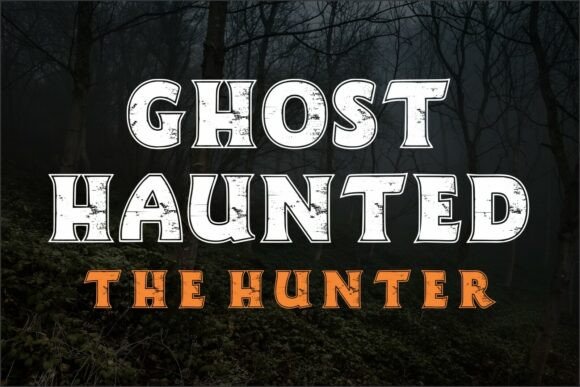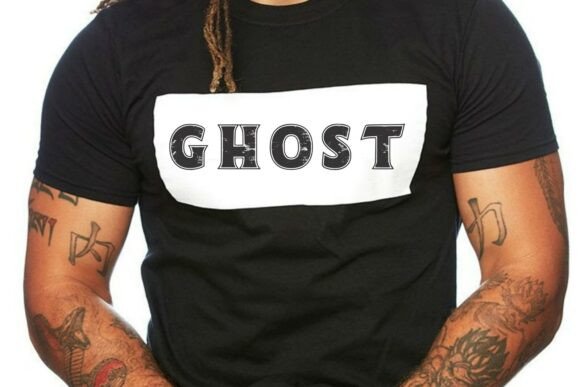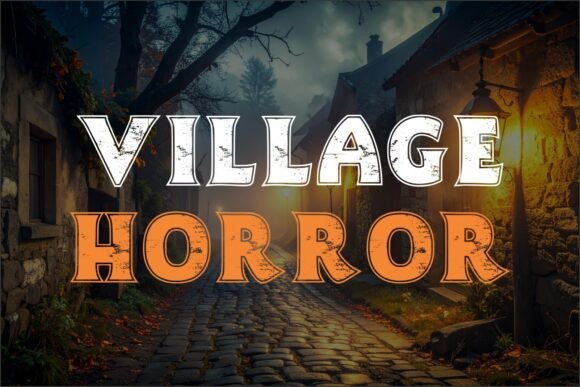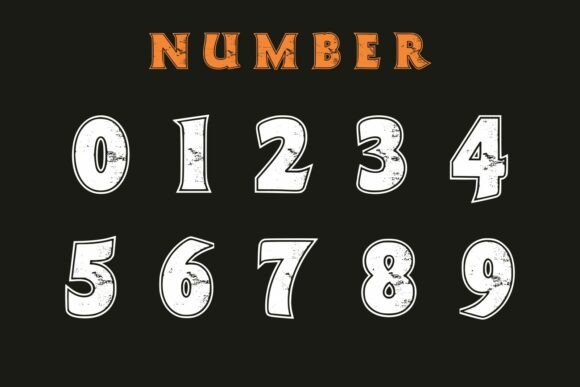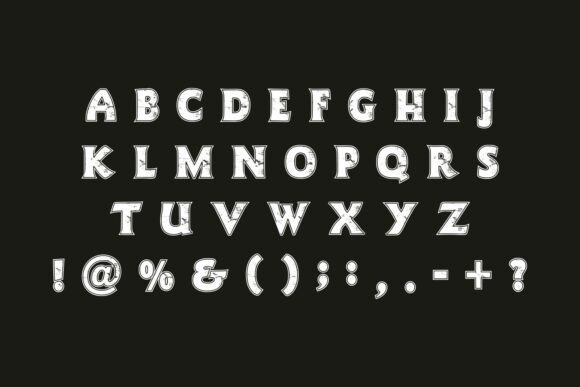
Introduction to Horror Killer Font Font
Fonts play a crucial role in design, and the Horror Killer Font font is a typeface that brings both character and versatility to any project. Whether you’re working on a branding project, a website, or a print design, the Horror Killer Font font offers a unique style that can elevate your work.
Horror Killer is a bold display typeface blending classic slab-serif structure with distressed, grunge-style textures.
Inspired by retro film posters and old marquee signage, this font evokes a nostalgic cinematic feel while maintaining a strong visual impact Its worn, weathered surface adds depth and authenticity, making it ideal for vintage branding, film-themed graphics, event posters, packaging, and editorial headlines.
Key Features of Horror Killer Font Font
Why Choose Horror Killer Font Font?
The Horror Killer Font font is more than just a typeface – it’s a design tool that helps you communicate your message with style and clarity. Its unique character set and versatile design make it suitable for a wide range of applications, from elegant invitations to bold headlines.
With its carefully crafted letterforms and balanced proportions, the Horror Killer Font font ensures readability and visual appeal across all mediums.
What makes Horror Killer Font font special?
The Horror Killer Font font stands out with its unique design, exceptional readability, and versatility across various design applications.